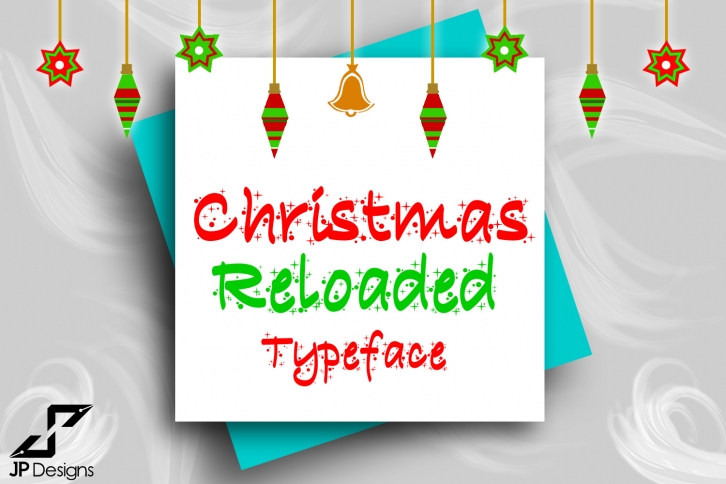
Christmas Reloaded is a beautiful font that was designed by LJ Design Studios. It's a great choice for designers and creatives who need such a font. It was released on November 28, 2018 and the file size is 10.65 MB. Christmas Reloaded may give a more youthful, expressive and casual look to your project. It is a very beautiful, refined, elegant, and high-quality font.